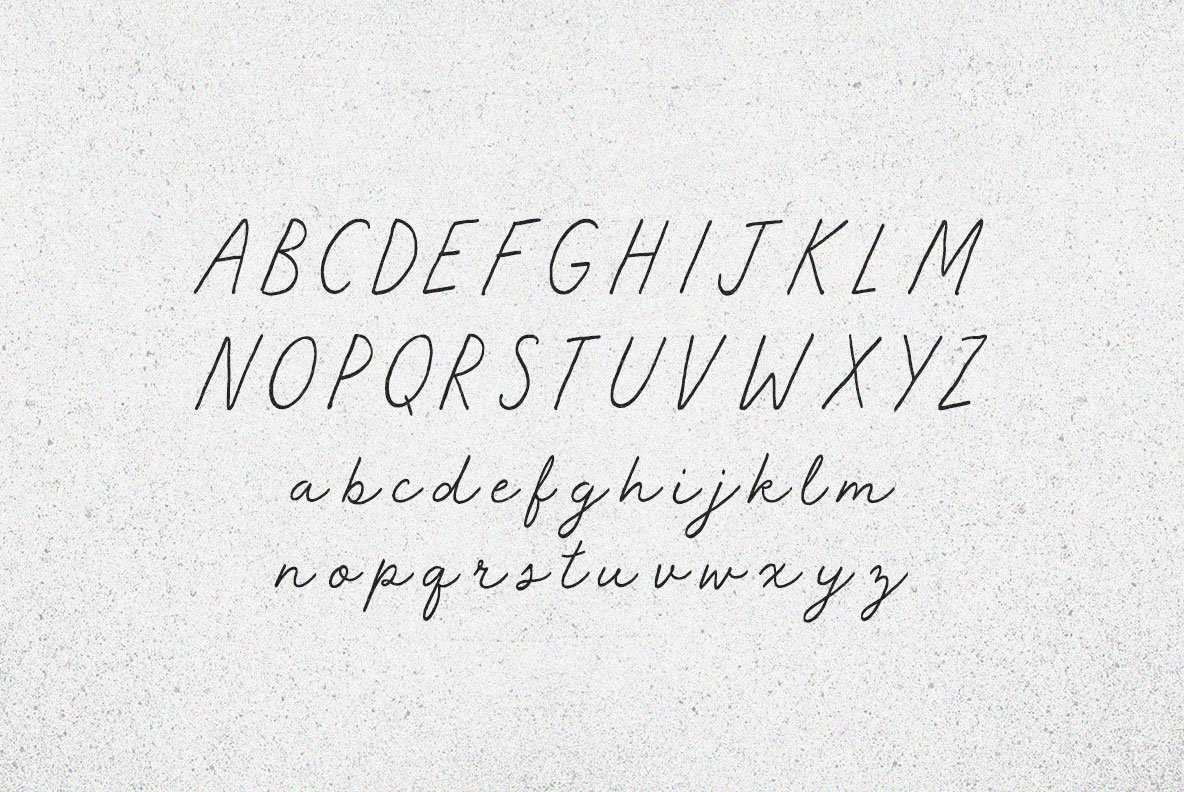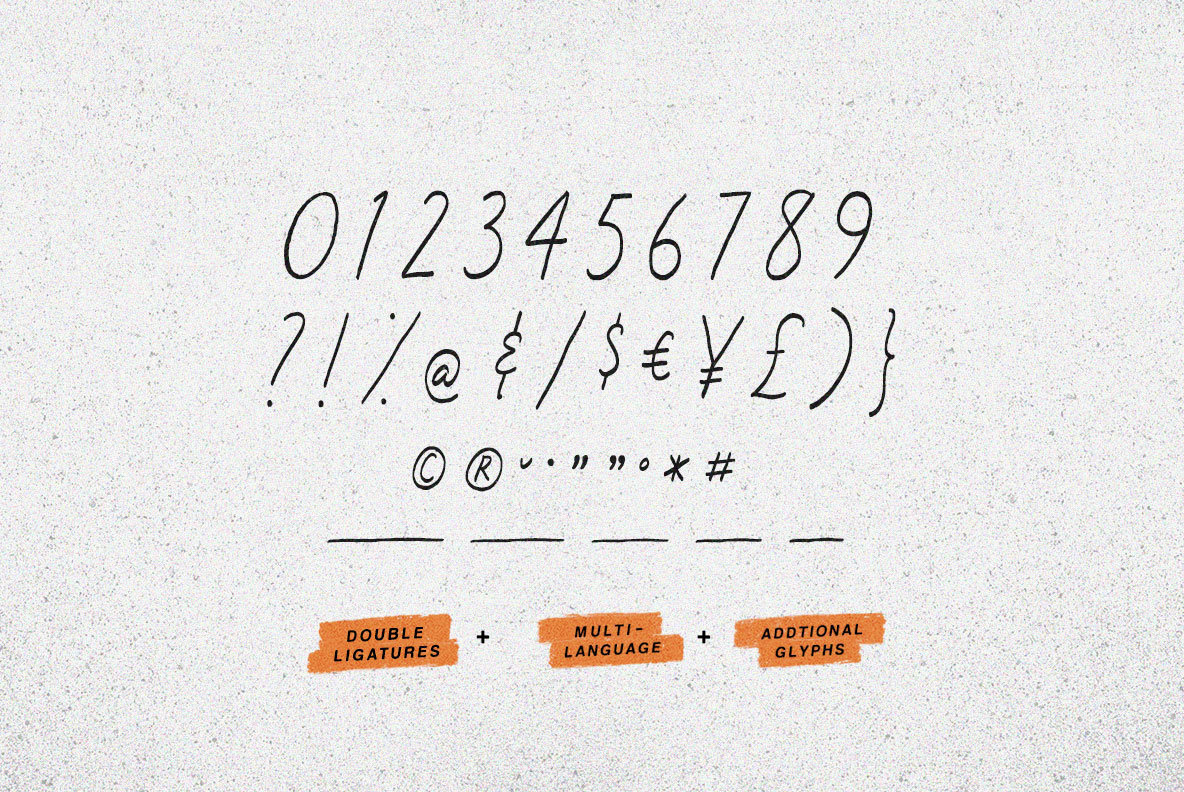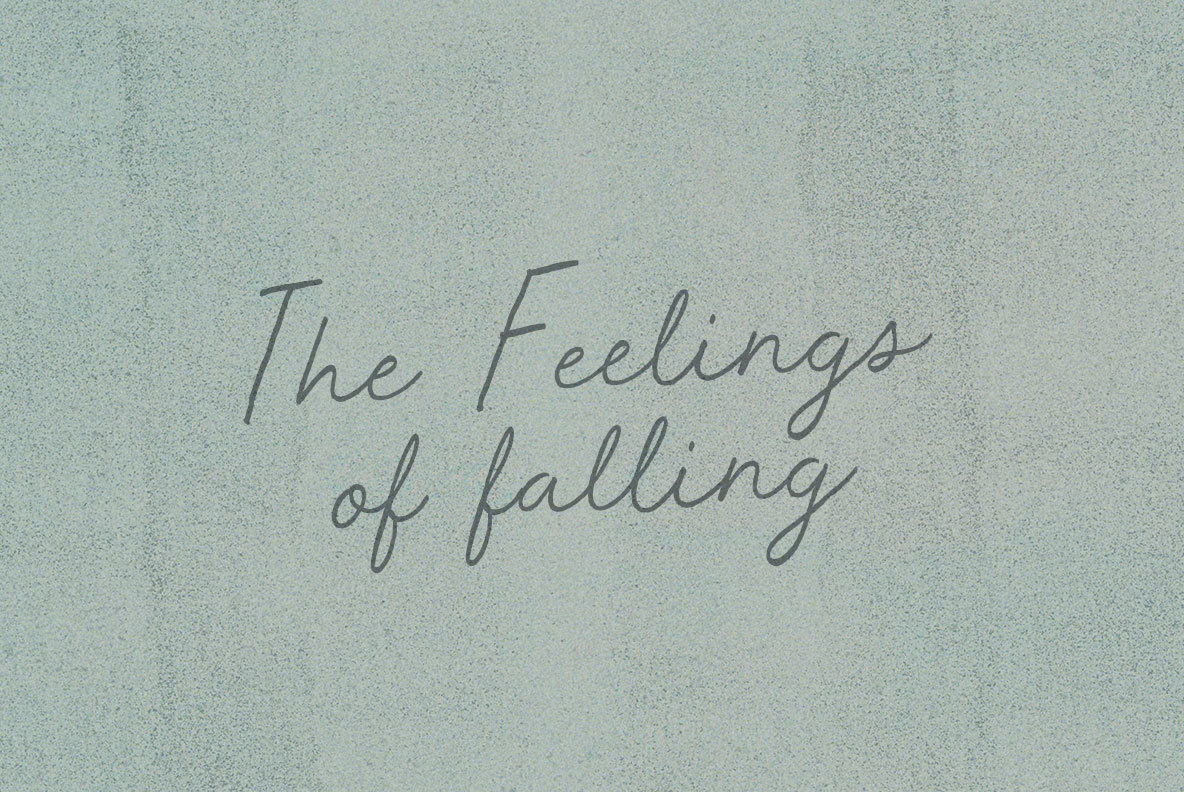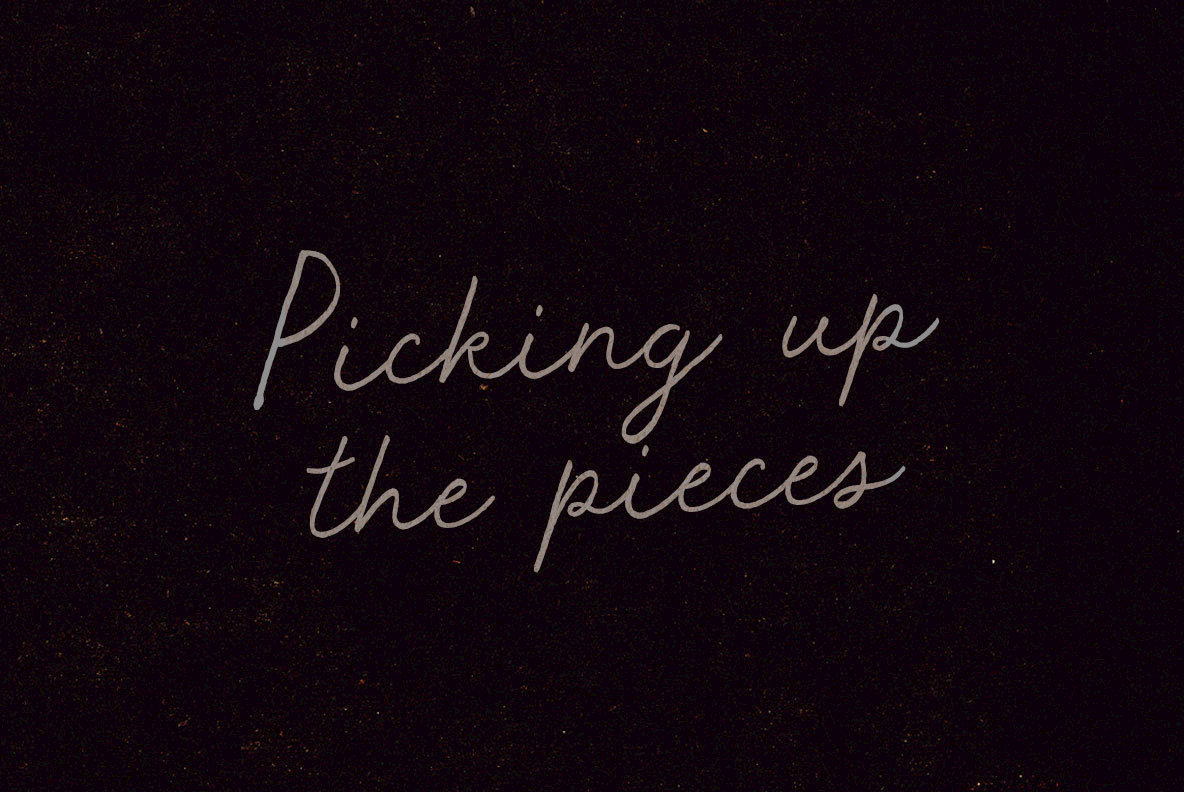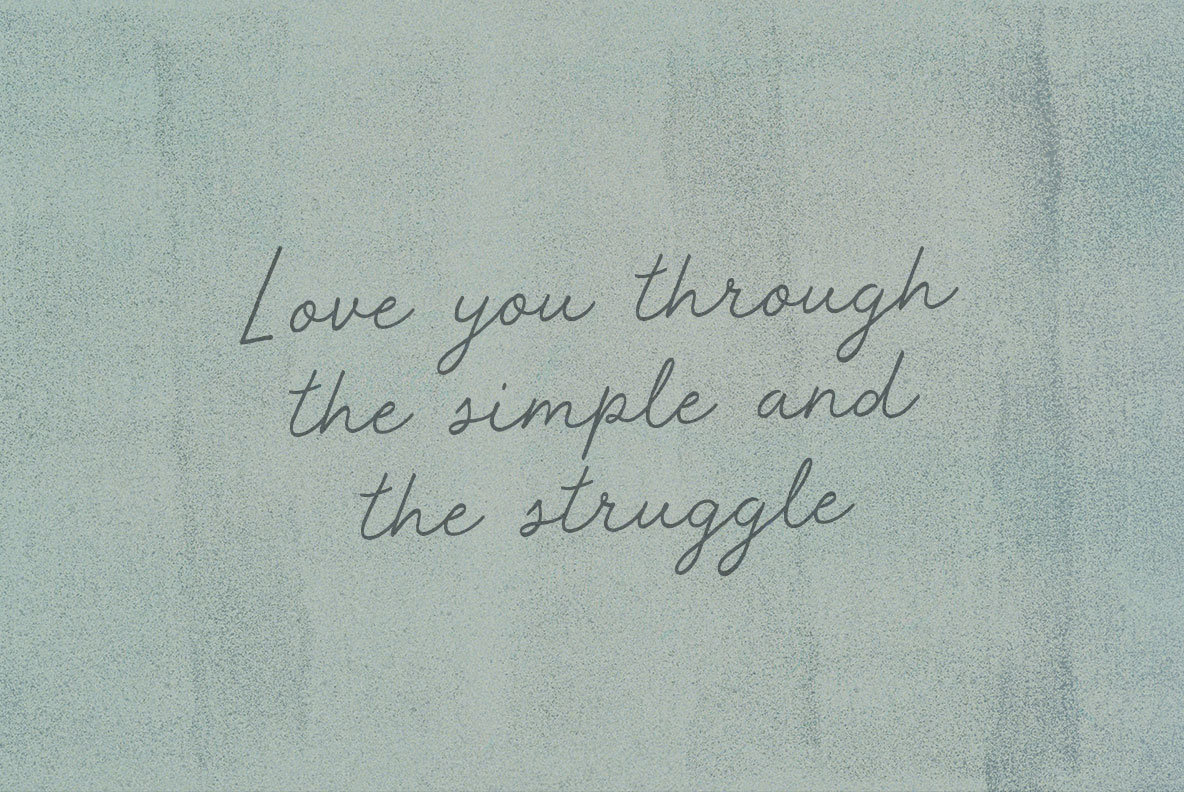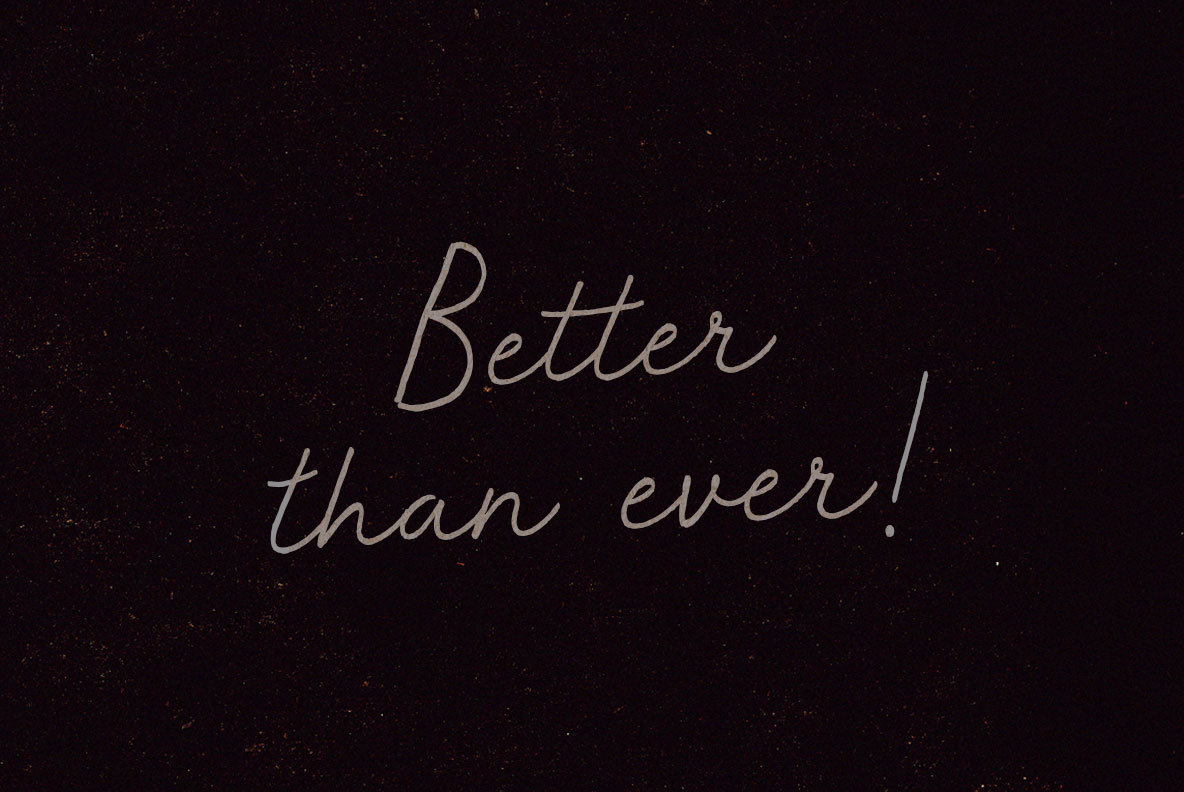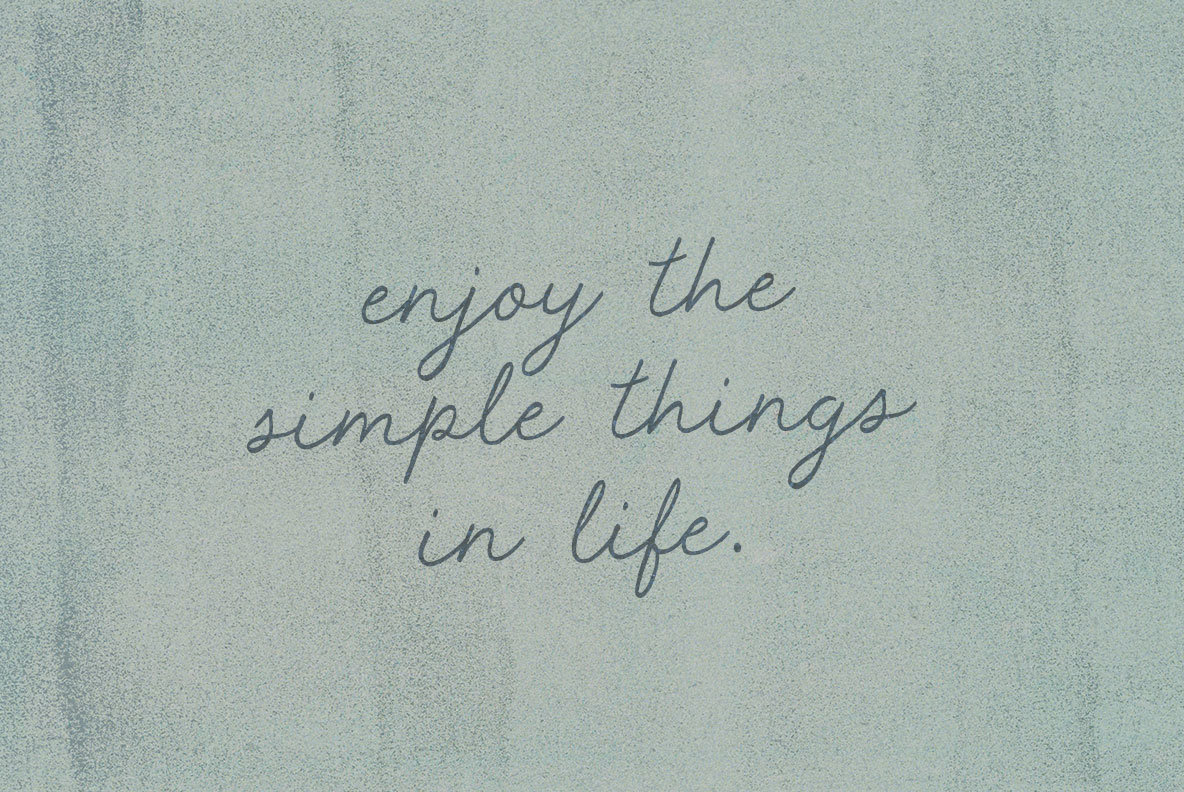
He takes the novice's hands in his hands and forgives his fumbling. Decades removed from that seat, but only months from his journeyman toil, the Master Works on his apprentice: Shaping hands to shape hands, such that eyes may perceive hands.